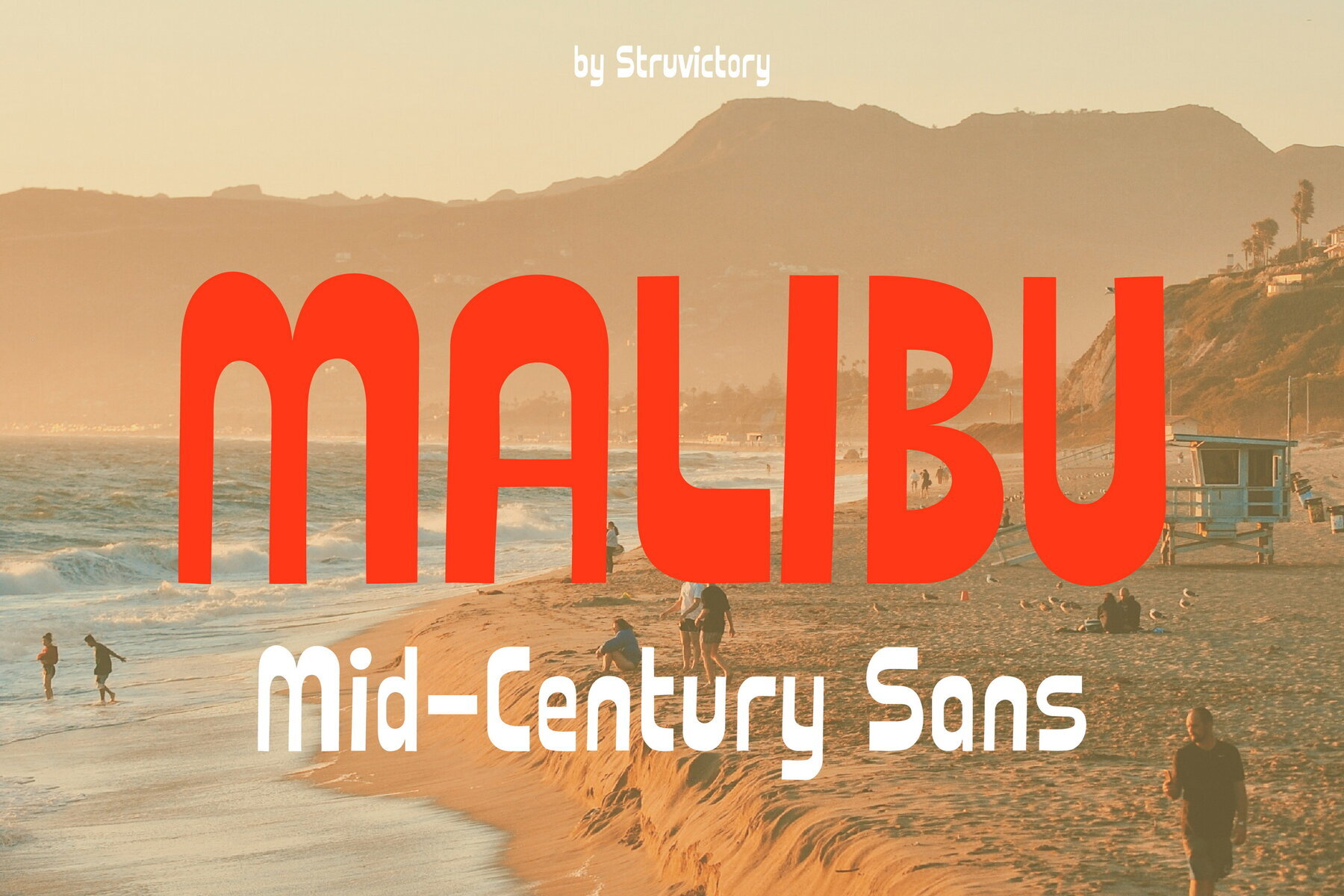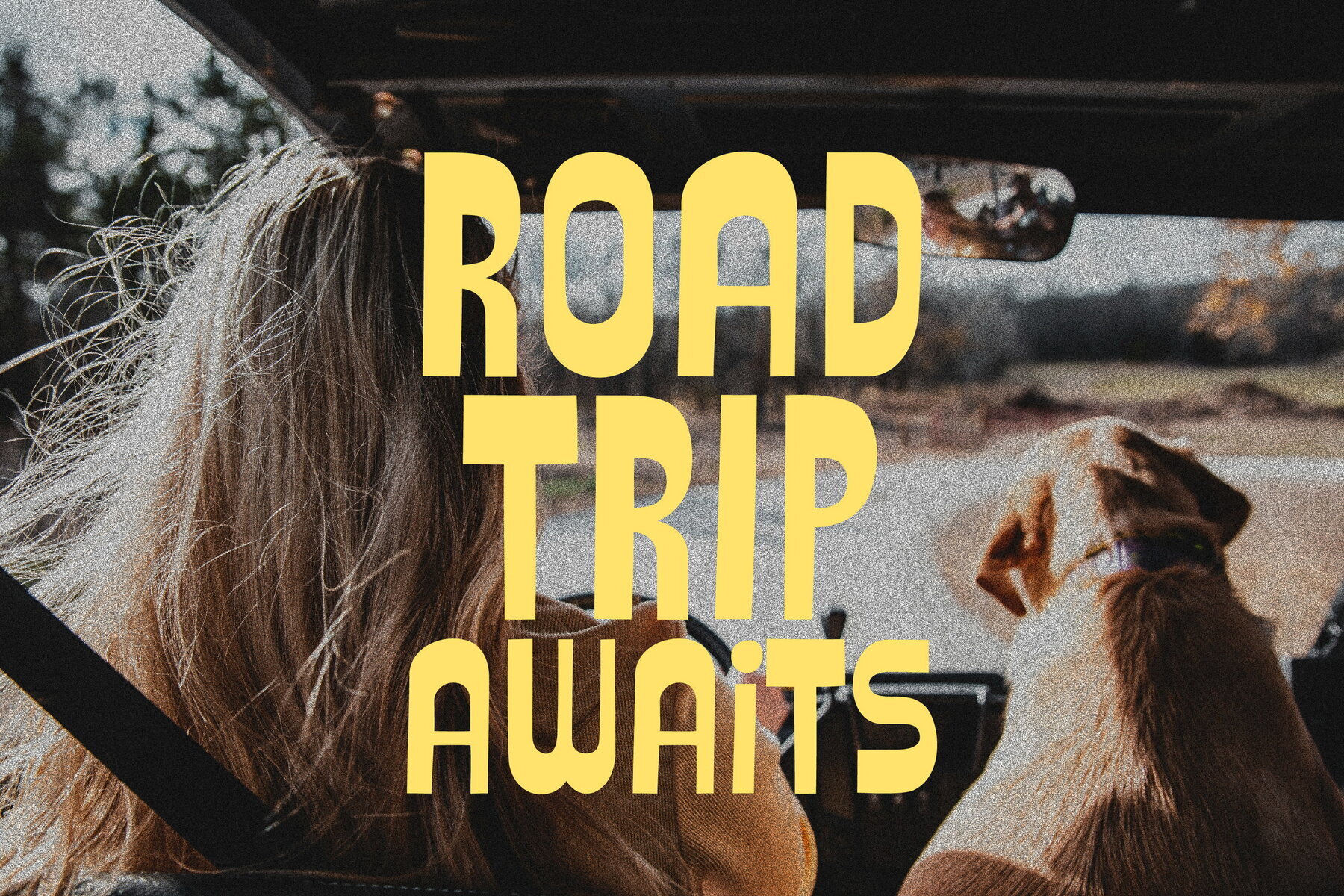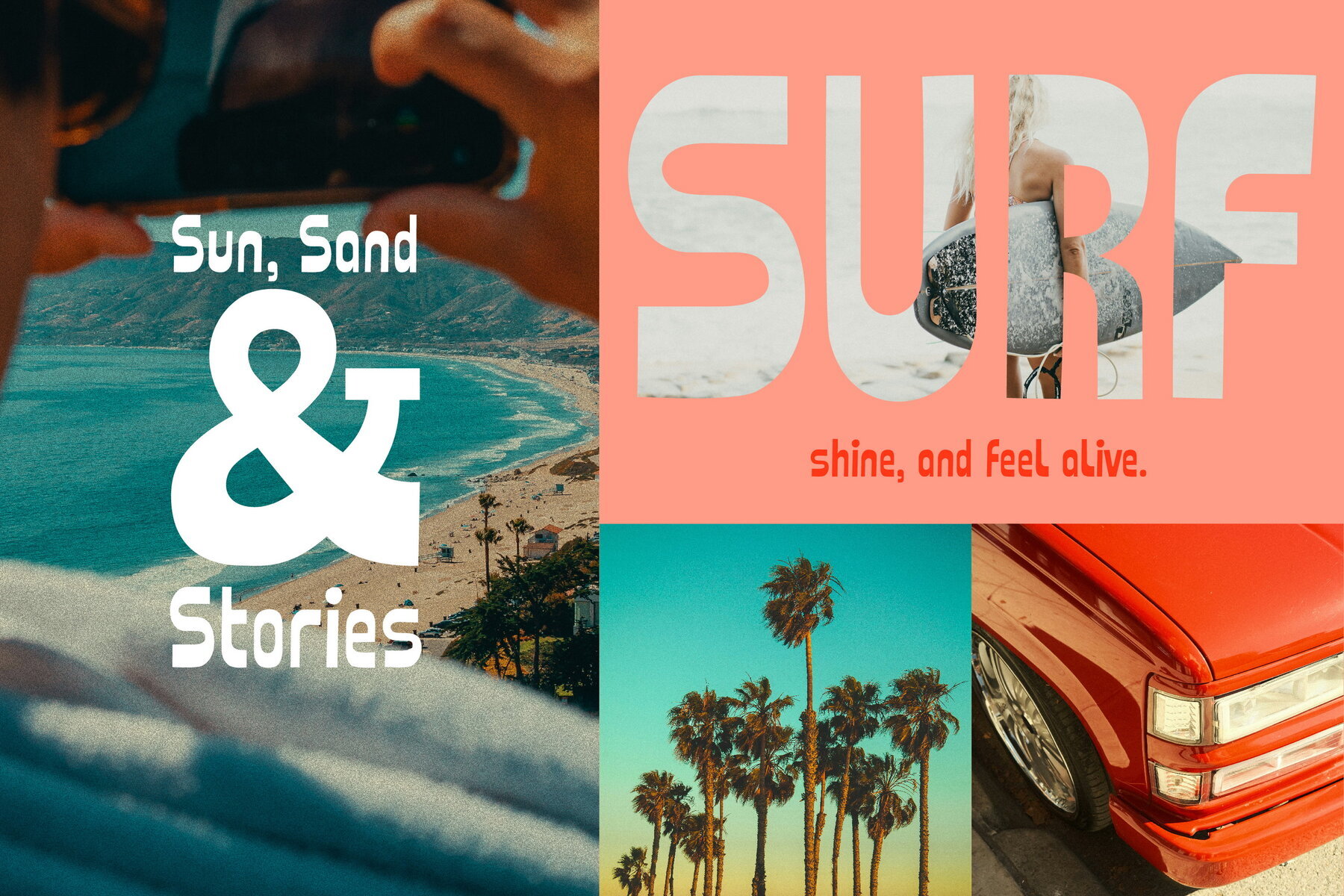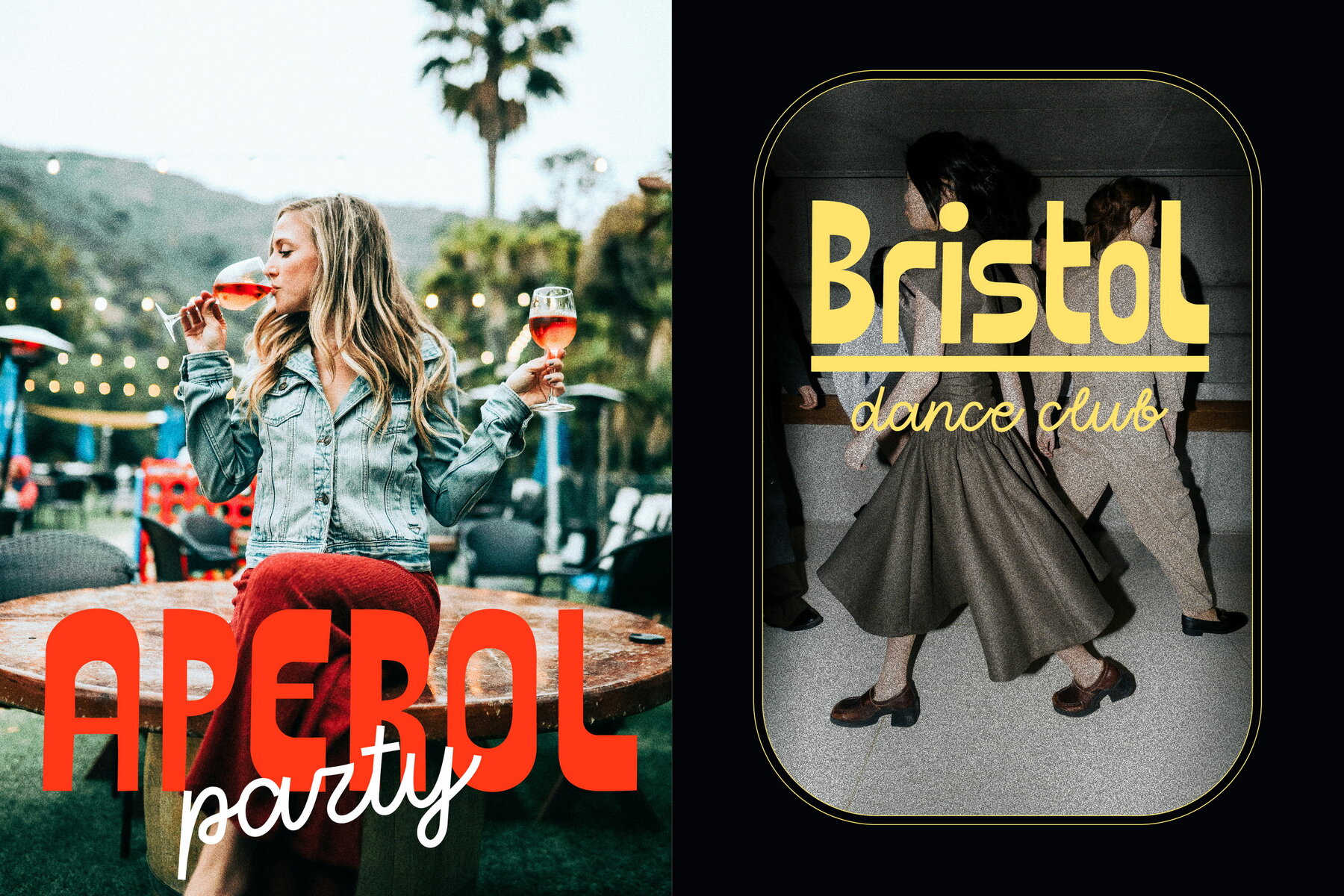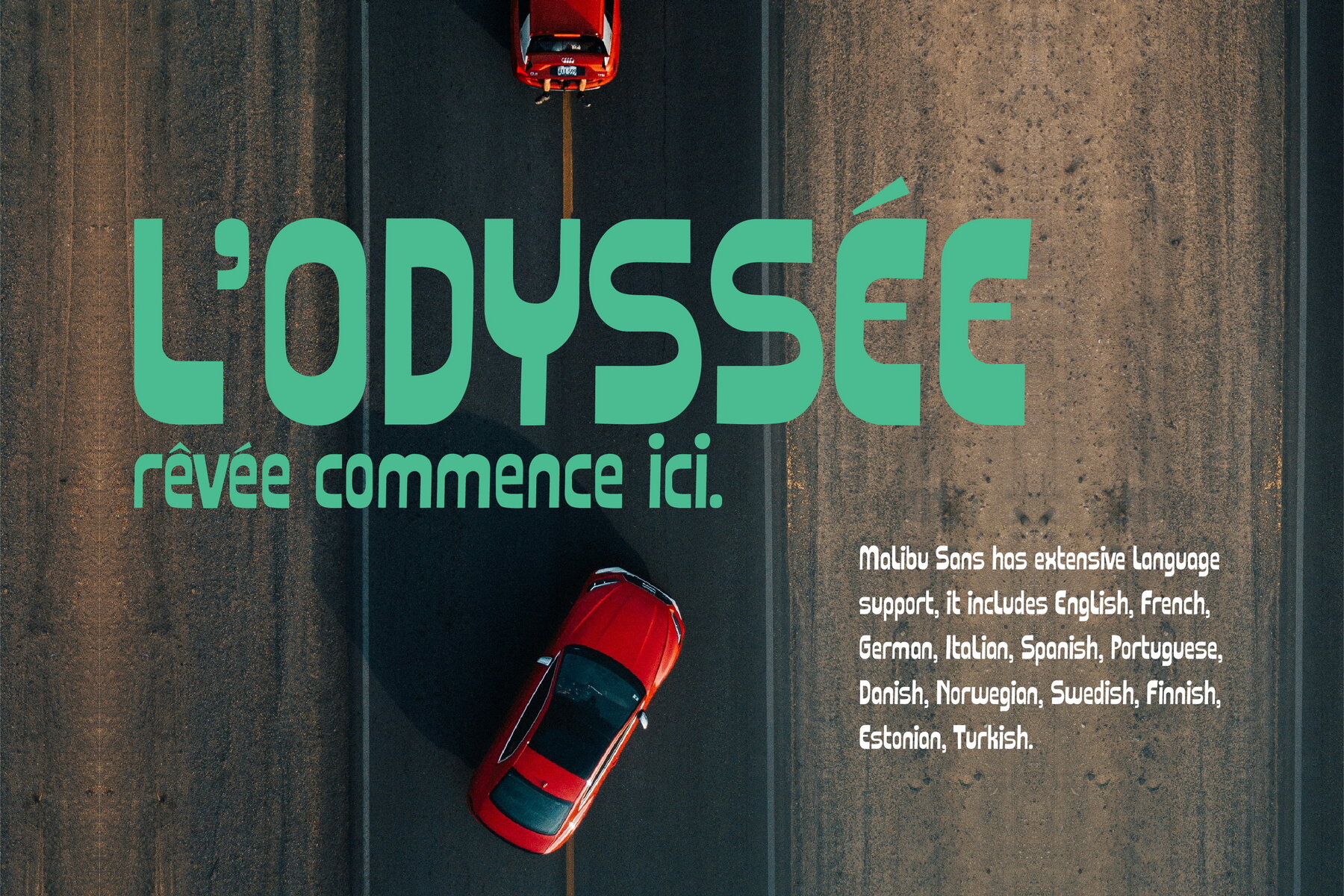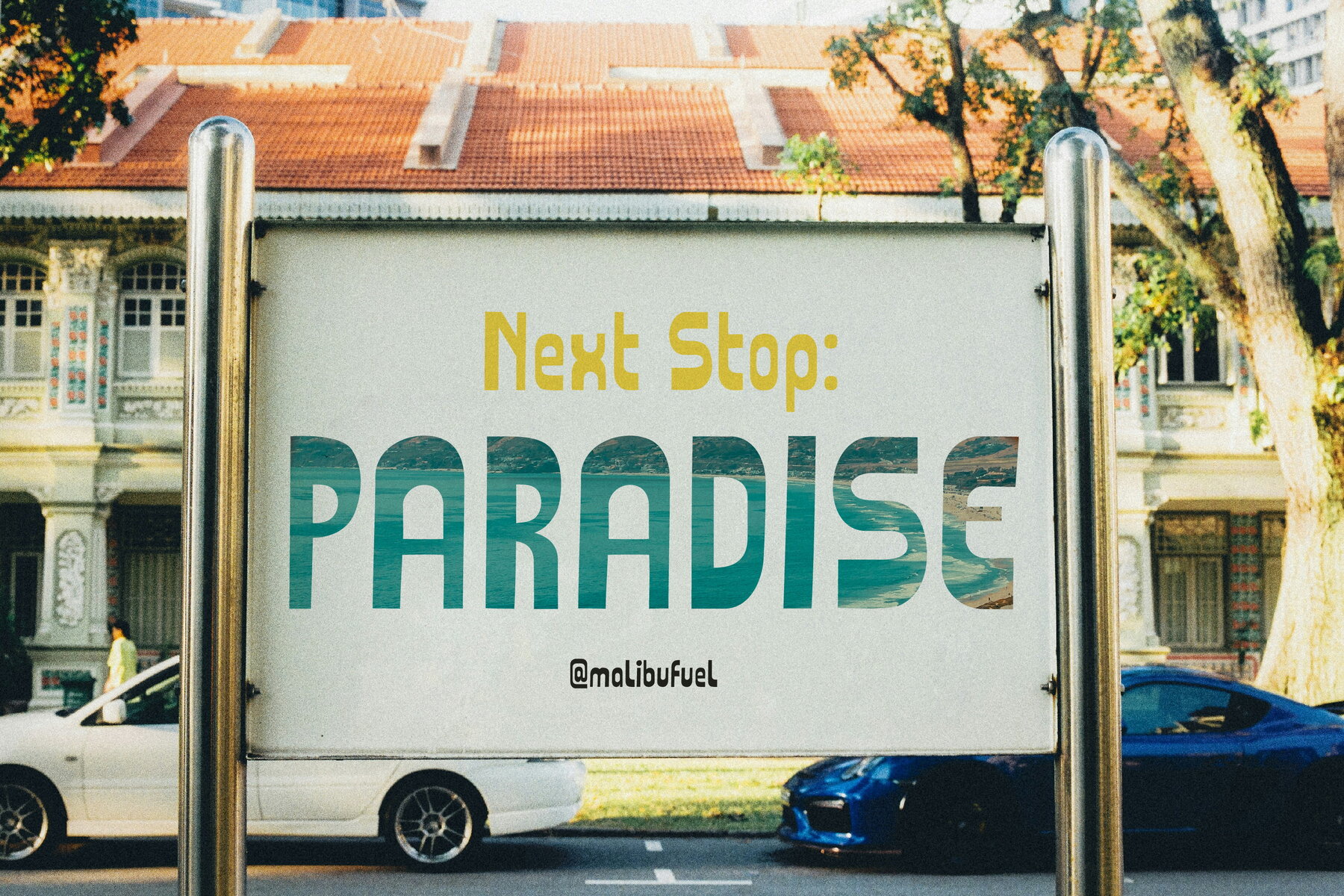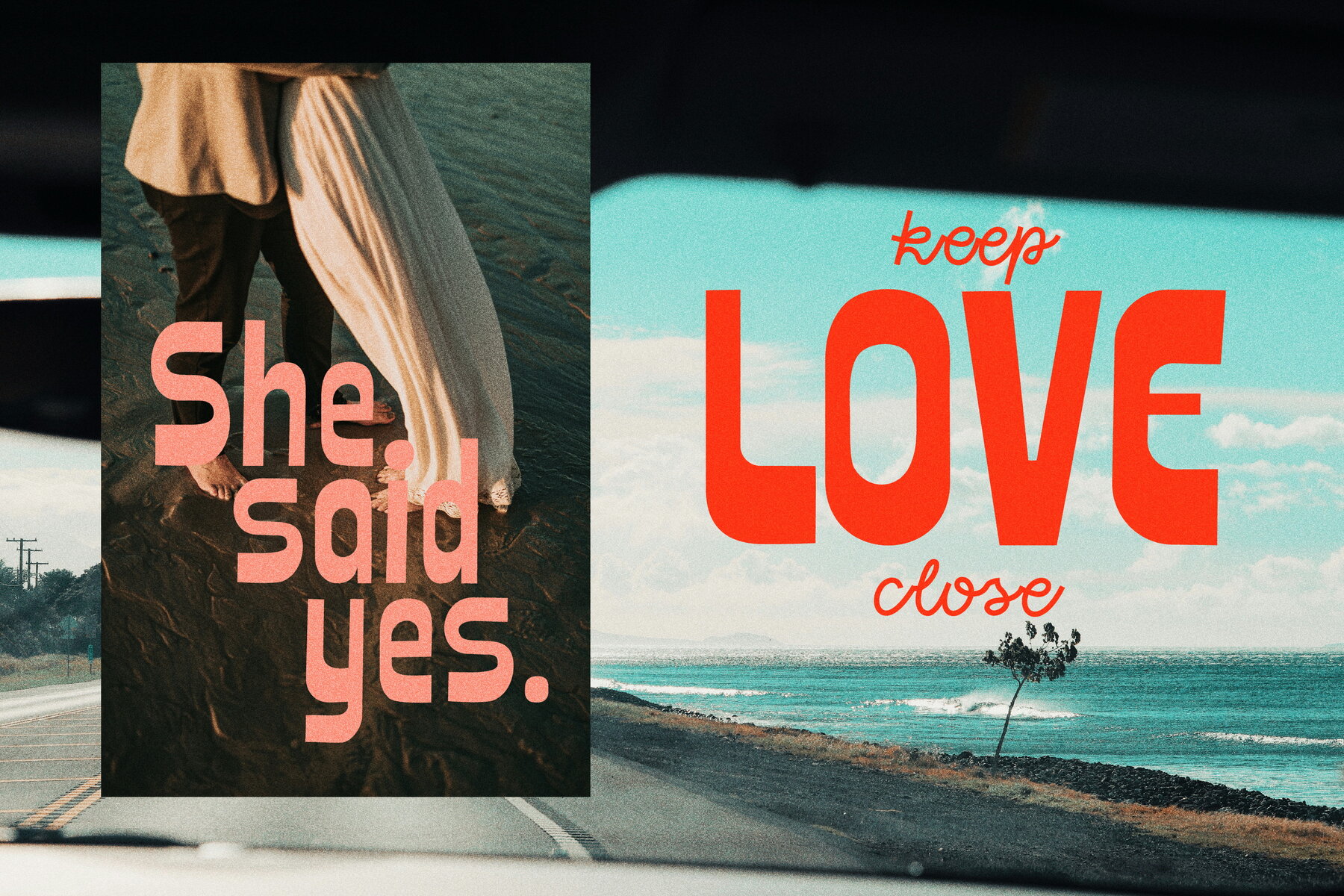
Malibu Sans Font
Malibu Sans
Malibu is a font that evokes the golden era of mid-century design with its smooth curves and effortless flow. Its retro charm makes it reminiscent of vintage signage, road trip nostalgia, and that quintessential coastal cool. Ideal for branding, packaging, travel posters, editorial design, and laid-back apparel, Malibu infuses warmth and personality into any project. Whether seeking the spirit of a classic motel sign or a touch of retro elegance, this typeface offers timeless style. Features:Malibu: A Breezy, Mid-Century Inspired Typeface